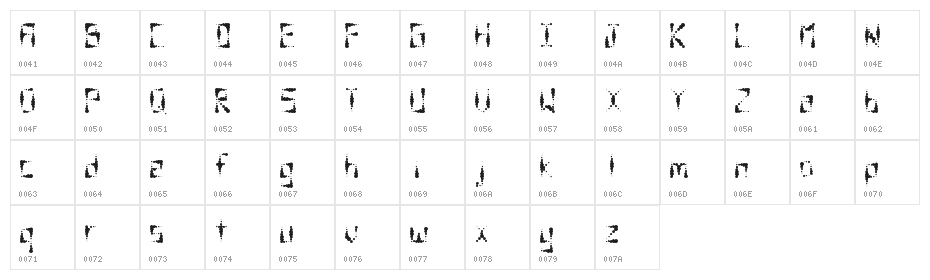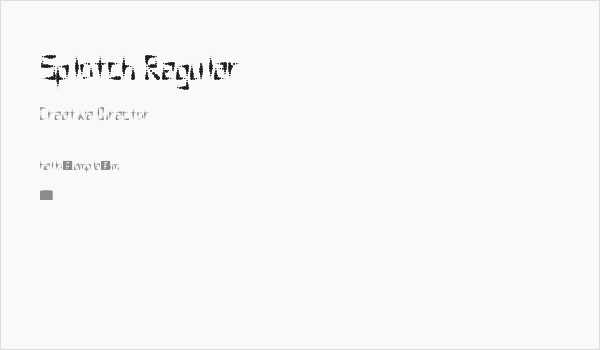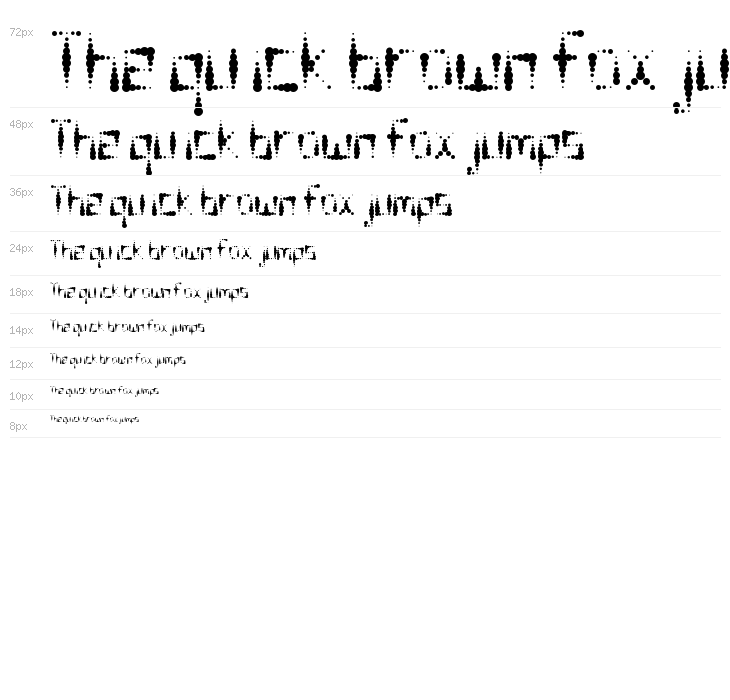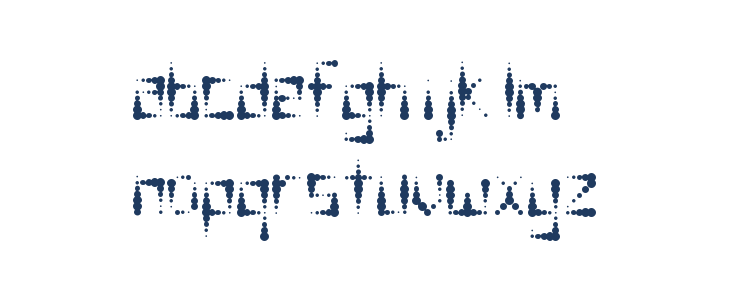
Splotch Regular Font
Splotch Regular Description
This font features a unique design composed of small, evenly spaced dots that form each character. The style is playful and artistic, creating a visually striking appearance that stands out. The uppercase and lowercase letters maintain consistent dot patterns, giving a cohesive look across the alphabet. The numbers and special characters follow the same dotted style, ensuring uniformity. This font's distinct appearance makes it ideal for creative projects where a bold, unconventional look is desired.
| Proposed Projects | Ideal for posters, artistic designs, children's books, and creative branding projects. |